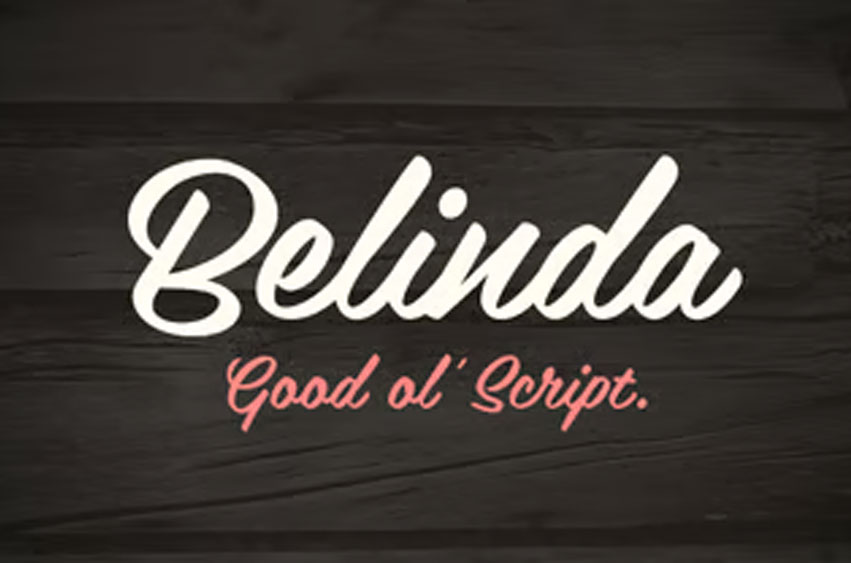
Belinda Vintage Font
Belinda Vintage Font is a vintage brush script. It is suitable for flyers, posters, novels, letterheads, or any design requirements you want to be awesome.
It will certainly amaze your readers.